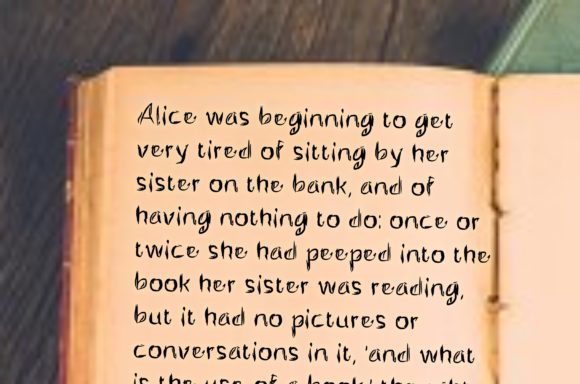
Introducing Fireline Font: The Edgy Display Font for Bold Designs
Are you tired of using the same old fonts for your designs? Do you want to add a touch of edginess and boldness to your posters, banners, logos, and product packaging? Look no further than Fireline Font, an original and edgy display font that’s sure to make your designs stand out.
What is Fireline Font?
Fireline Font is a unique and stylish display font that’s perfect for designers and crafters who want to add a bold and edgy touch to their work. With its distinctive and eye-catching design, Fireline Font is ideal for creating striking posters, banners, logos, and product packaging that grab attention and leave a lasting impression.
Key Features of Fireline Font
- Original and Edgy Design: Fireline Font boasts an original and edgy design that’s sure to make your designs stand out from the crowd.
- Versatile: Fireline Font can be used for a wide range of design applications, including posters, banners, logos, product packaging, and more.
- Easy to Read: Despite its edgy design, Fireline Font is easy to read and understand, making it perfect for designs that require a bold and attention-grabbing headline or title.
- High-Quality: Fireline Font is a high-quality font that’s designed to deliver exceptional results, even at large sizes.
Uses of Fireline Font
Fireline Font is a versatile font that can be used for a wide range of design applications, including:
- Posters: Create eye-catching posters that grab attention and leave a lasting impression with Fireline Font.
- Banners: Use Fireline Font to create bold and striking banners that showcase your brand or message.
- Logos: Create a bold and memorable logo for your brand with Fireline Font.
- Product Packaging: Add a touch of edginess and boldness to your product packaging with Fireline Font.
- Social Media Graphics: Use Fireline Font to create striking social media graphics that grab attention and drive engagement.
Benefits of Using Fireline Font
By using Fireline Font, designers and crafters can enjoy a range of benefits, including:
- Increased Visibility: Fireline Font is designed to grab attention and increase visibility, making it perfect for designs that need to stand out.
- Improved Brand Recognition: With its bold and edgy design, Fireline Font can help to improve brand recognition and build a strong brand identity.
- Enhanced Creativity: Fireline Font offers a range of creative possibilities, allowing designers and crafters to experiment with different styles and designs.
- Time-Saving: Fireline Font is easy to use and customize, saving designers and crafters time and effort.
Tips for Using Fireline Font
To get the most out of Fireline Font, here are some tips to keep in mind:
- Use it Boldly: Fireline Font is designed to be used boldly, so don’t be afraid to experiment with different sizes and styles.
- Pair it with Other Fonts: Fireline Font can be paired with other fonts to create a unique and striking design.
- Experiment with Colors: Fireline Font looks great in a range of colors, so experiment with different colors to find the one that works best for your design.
| Author | VERClevery Design |
Fireline Font is an original and edgy display font that’s perfect for designers and crafters who want to add a bold and edgy touch to their work. With its versatile design, ease of use, and range of creative possibilities, Fireline Font is a must-have font for anyone looking to create striking designs that grab attention and leave a lasting impression.